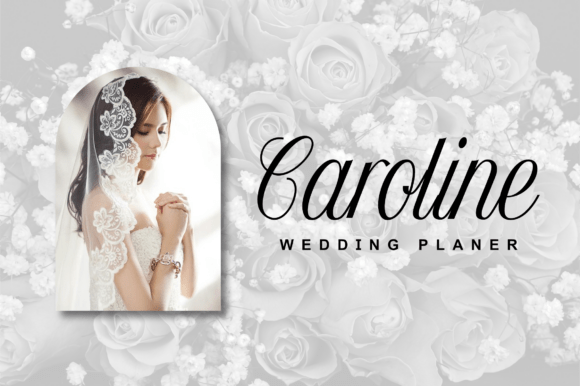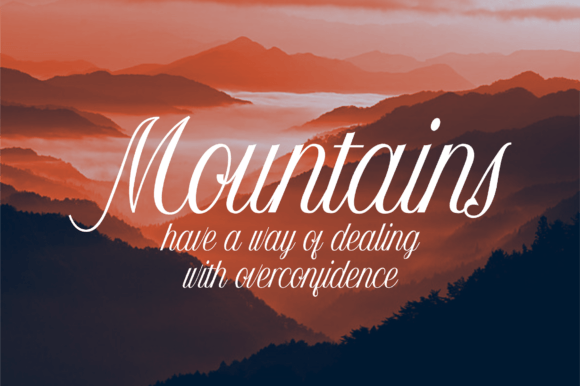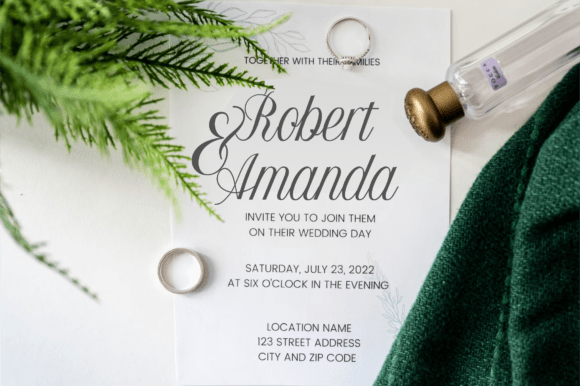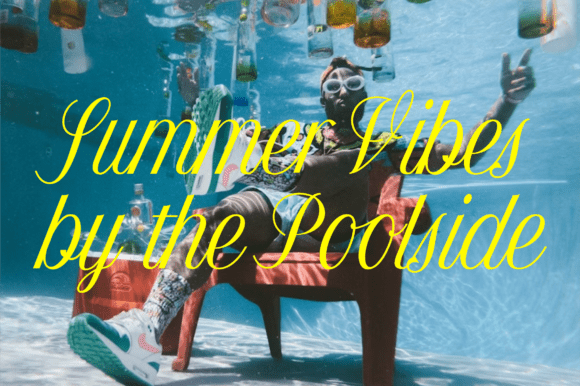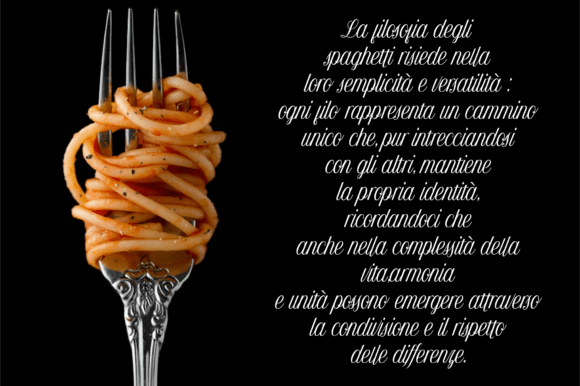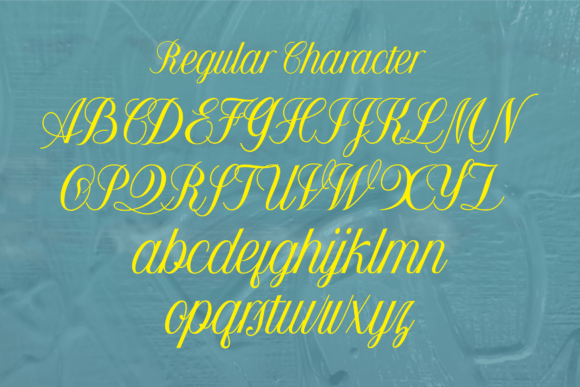
Introduction to Delovancy Font
Crafted with balance and precision, Delovancy captures the essence of refined script calligraphy without overwhelming flourishes.
Its minimalist approach gives it a polished and contemporary look, making it ideal for logo designs, boutique branding, editorial titles, and stylish social media graphics The included ligatures enhance natural flow and harmony between letters, creating visually pleasing compositions.
Key Features of Delovancy Font
Why Choose Delovancy Font?